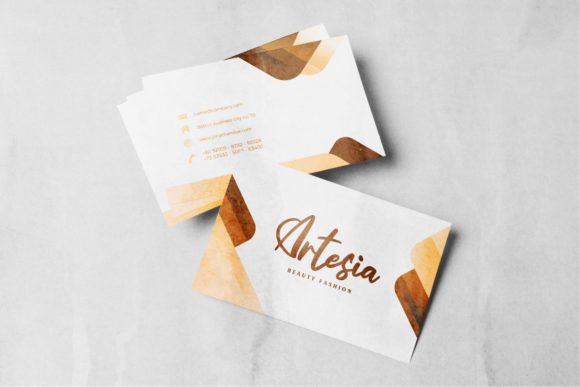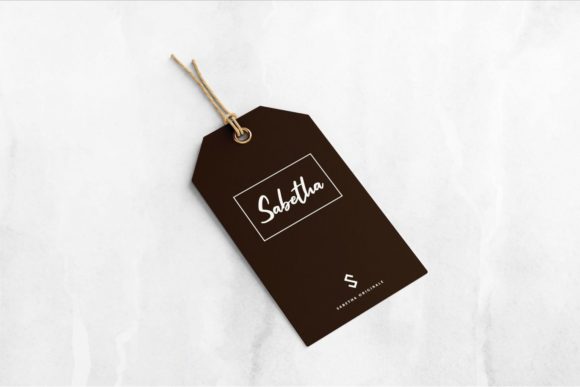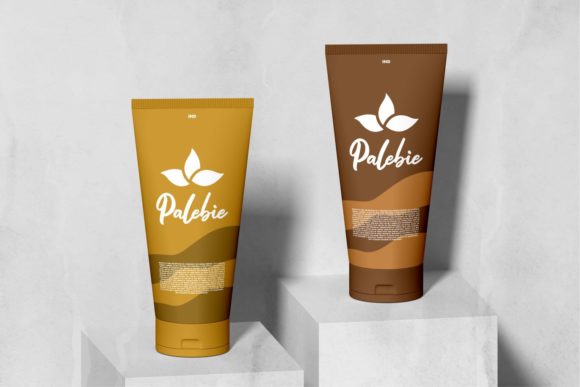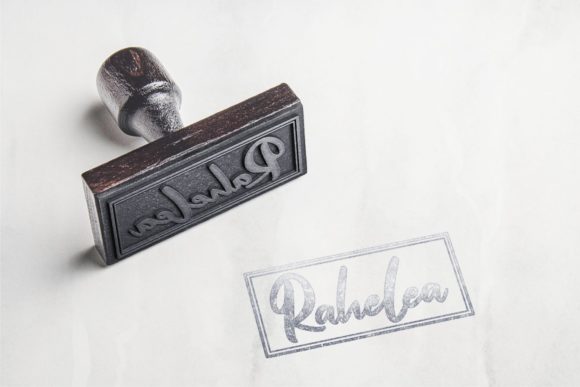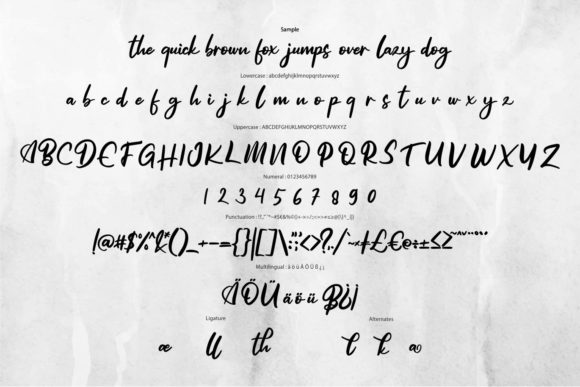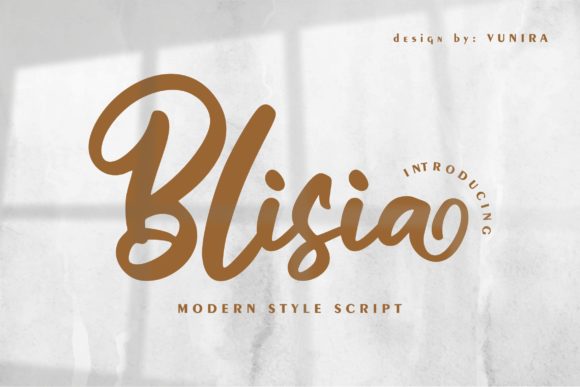
Introducing Blisia Font: Elevate Your Crafting Projects with Elegance and Personality
In the world of crafting, the right font can make all the difference in transforming a simple project into a stunning piece of art. For crafters and designers seeking a bold and elegant handwritten font to add a touch of personality to their creations, Blisia Font is an exceptional choice. In this article, we’ll delve into the characteristics of Blisia Font, explore its uses, and provide tips on how to make the most of this beautiful font in your crafting projects.
What is Blisia Font?
Blisia is a bold and elegant handwritten font designed to bring a touch of sophistication and personalization to any crafting project. Its unique, flowing script is perfect for crafters who want to add a distinctive and stylish flair to their work. Whether you’re creating handmade cards, decorative signs, or personalized gifts, Blisia Font is sure to make your project stand out.
Key Features of Blisia Font
- Bold and Elegant: Blisia Font boasts a bold yet elegant appearance, making it suitable for a wide range of crafting projects.
- Handwritten Style: The font’s handwritten style adds a personal touch to any project, making it perfect for crafters who value uniqueness.
- Versatile: Blisia Font can be used for various crafting projects, from paper crafting and card making to scrapbooking and DIY home decor.
- Easy to Read: Despite its bold and elegant appearance, Blisia Font remains easy to read, ensuring that your message is conveyed clearly.
Uses of Blisia Font in Crafting Projects
Blisia Font’s versatility makes it an excellent choice for a variety of crafting projects. Here are some ideas to get you started:
- Handmade Cards: Add a personal touch to your greeting cards with Blisia Font, making them special and memorable.
- Decorative Signs: Use Blisia Font to create beautiful decorative signs for your home or as gifts.
- Personalized Gifts: Add a personalized message to your gifts using Blisia Font, making them extra special.
- Scrapbooking: Incorporate Blisia Font into your scrapbooking projects to add a touch of elegance and personality.
- Paper Crafting: Use Blisia Font to create unique and stylish paper crafting projects, such as origami, paper flowers, and more.
Tips for Using Blisia Font in Your Crafting Projects
To make the most of Blisia Font in your crafting projects, consider the following tips:
- Combine with Other Fonts: Experiment with pairing Blisia Font with other fonts to create a unique and visually appealing design.
- Choose Complementary Colors: Select colors that complement the bold and elegant appearance of Blisia Font, such as pastels, neutrals, or rich jewel tones.
- Play with Sizes: Experiment with different font sizes to create visual interest and hierarchy in your design.
- Add Embellishments: Consider adding embellishments, such as glitter, stickers, or die-cuts, to enhance the overall appearance of your project.
Blisia Font is a beautiful and versatile handwritten font that can elevate your crafting projects with elegance and personality. Its bold and elegant appearance makes it perfect for a wide range of projects, from handmade cards and decorative signs to personalized gifts and scrapbooking. By following the tips outlined in this article, you can make the most of Blisia Font and create stunning crafting projects that showcase your creativity and style.